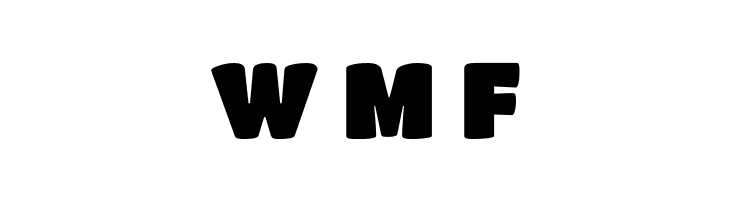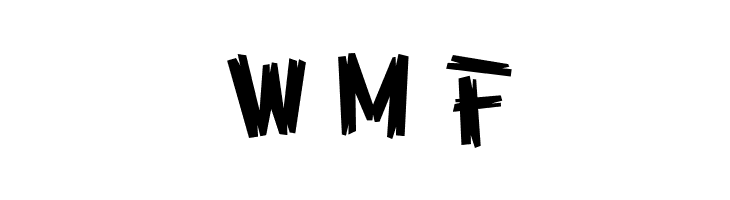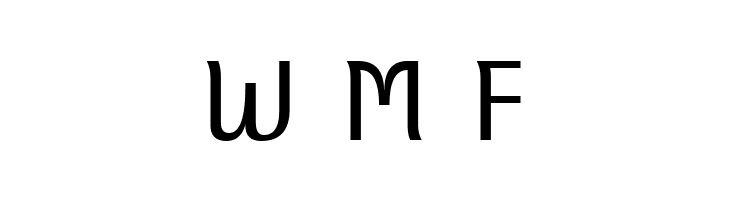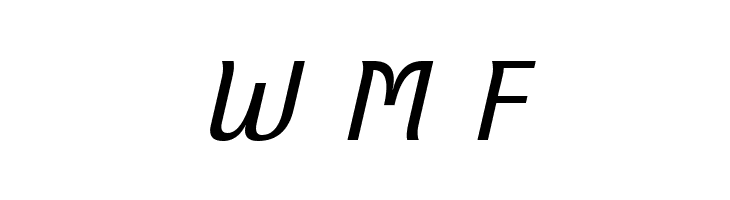
Titan One Font
A bold, rounded font with a modern and impactful style.
Unica One Font
A modern, geometric typeface with a clean and sleek design.
Mechsuit Font
A futuristic, angular font with bold, geometric shapes and a mechanical feel.
CheGuevara Text Sans Font
A clean, modern sans-serif font with balanced spacing and consistent stroke width.
Pigiarniq Light Font
A modern, light sans-serif font with clean lines and balanced proportions.
Naughty Monster Font
A playful, bold, hand-drawn font with a whimsical and energetic style.
Kontanter Bold Font
Pineapple Demo Font
A playful, bold, and hand-drawn font with a whimsical style.
Classica Bold Font
A bold, modern font with strong, clean lines and excellent readability.
Pigiarniq Heavy Font
A bold, modern font with strong, consistent strokes and excellent readability.
BenchNine Regular Font
A modern, clean sans-serif font with a slightly condensed style.
Rondiut Capitals Light Font
A sleek, geometric font with a modern and minimalist design.
DoubleBass Trial Regular Font
A bold, dynamic font with sharp angles and smooth curves for a striking appearance.
Square Antiqua Bold Font
A bold, robust font with a modern yet vintage appeal, featuring slightly condensed characters.
Square Antiqua Font
A modern, geometric font with consistent stroke width and clear readability.
DoubleBass Trial Bold Font
A bold, dynamic font with thick, blocky letterforms and a slight slant.
Teen Dreem Magazeen Font
A playful, handwritten font with a whimsical and casual style.
gAbAcHiTA-FFP Font
A bold, condensed font with tall, narrow characters and rounded edges.
Bongkerspop Font
A playful, handwritten font with a bold and friendly appearance.
Roundel Font
A bold, circular geometric font with high contrast and modern style.